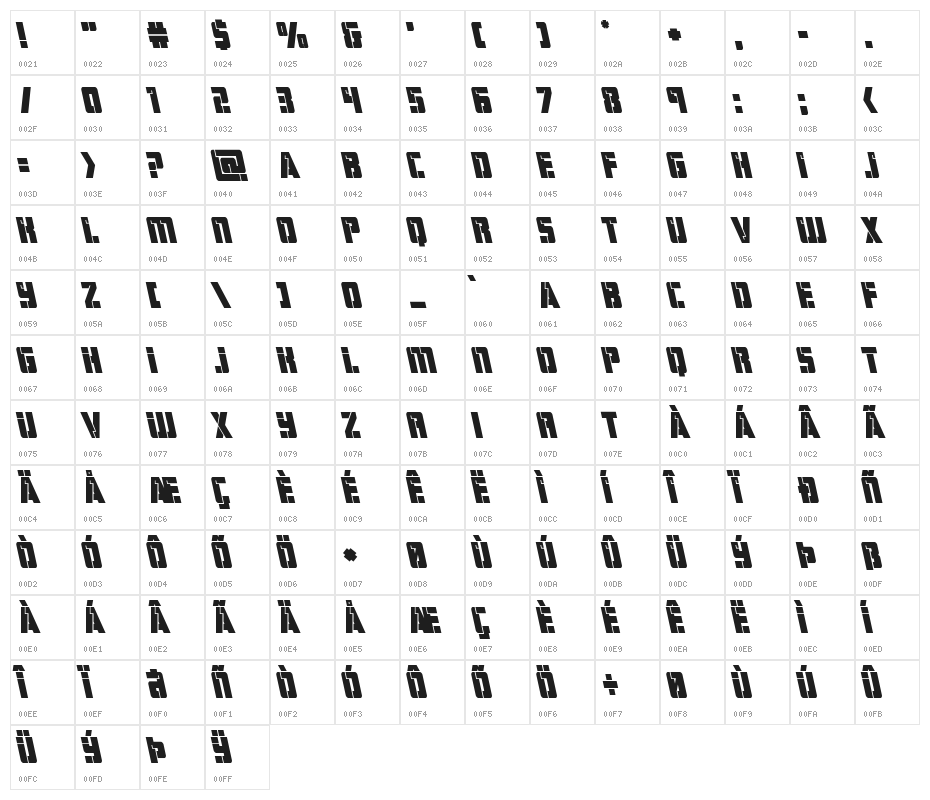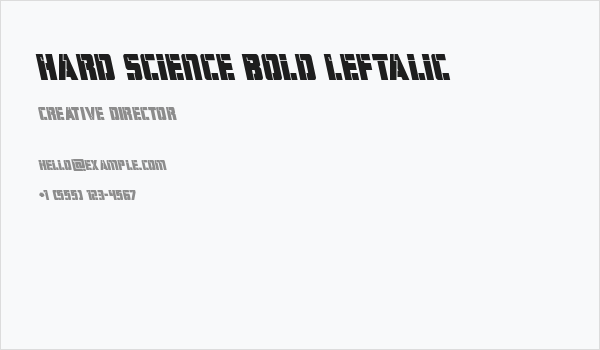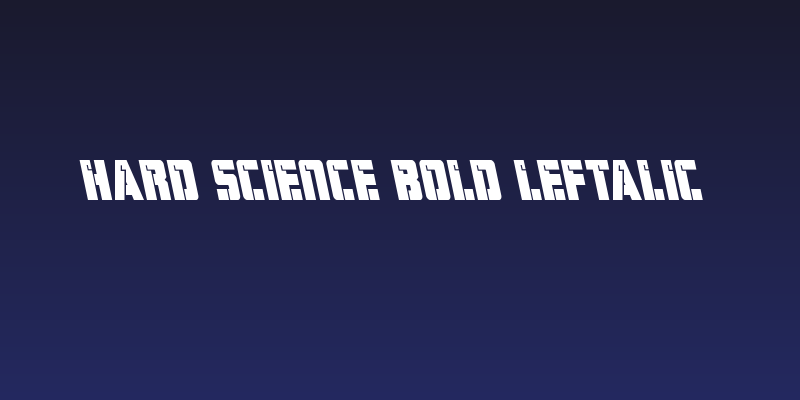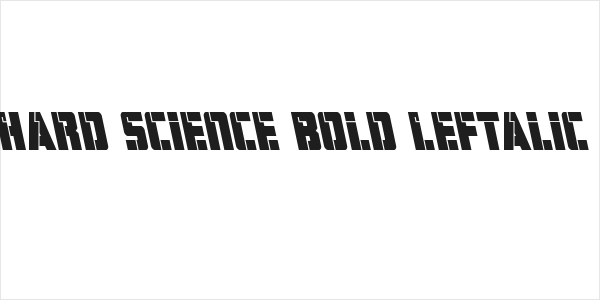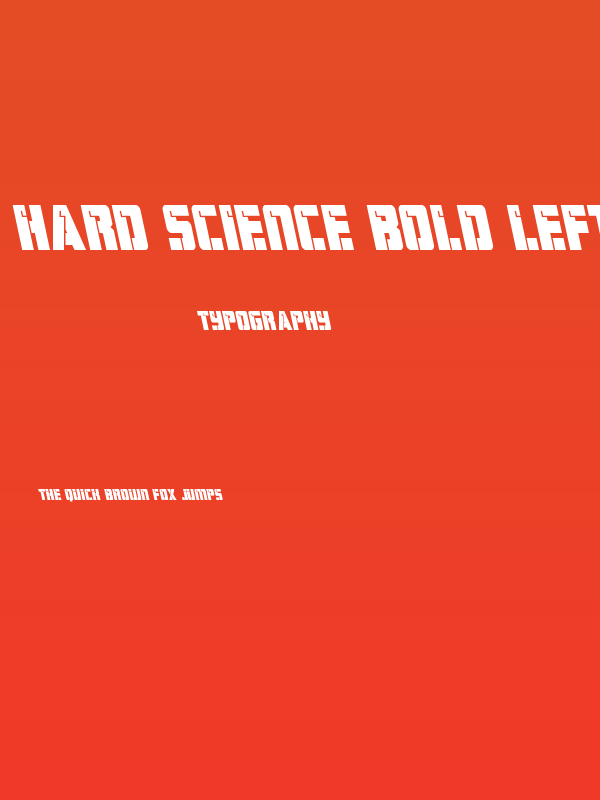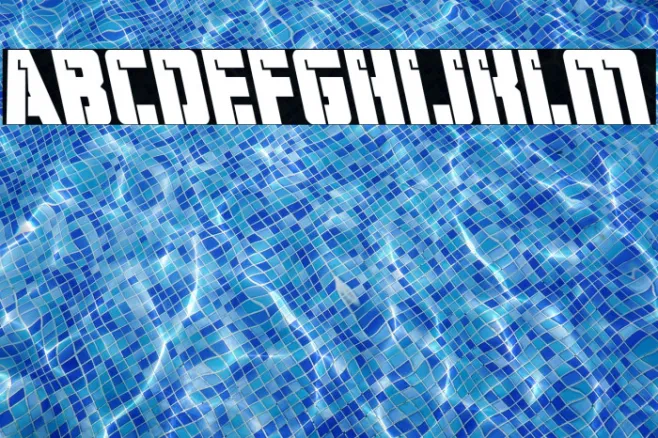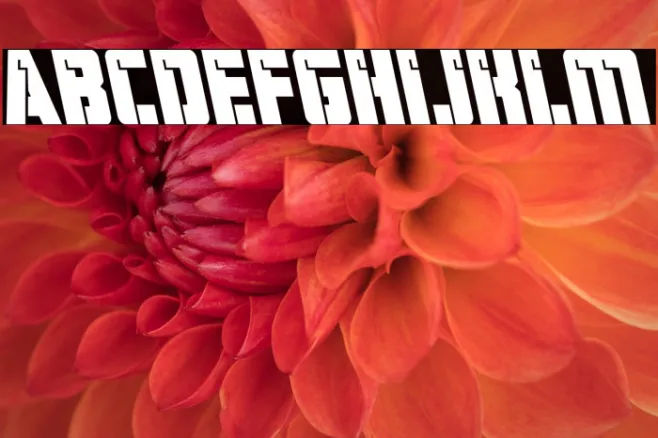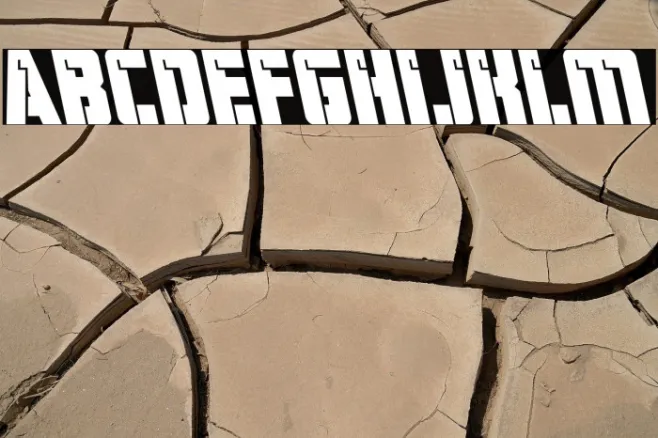
Hard Science Bold Leftalic Font
Hard Science Bold Leftalic Description
This font features a bold and striking design with a distinct leftward slant, giving it a dynamic and futuristic appearance. The characters are heavily stylized with sharp angles and geometric shapes, creating a sense of movement and energy. The uppercase and lowercase letters maintain a consistent weight, contributing to a cohesive and powerful visual impact. The numbers and special characters follow the same bold and angular style, ensuring uniformity across all glyphs. This font is ideal for projects that require a strong, modern aesthetic.
| Overall Style | Futuristic, Modern |
| Proposed Projects | Perfect for sci-fi themed designs, video game titles, posters, and branding that requires a modern, edgy look. |